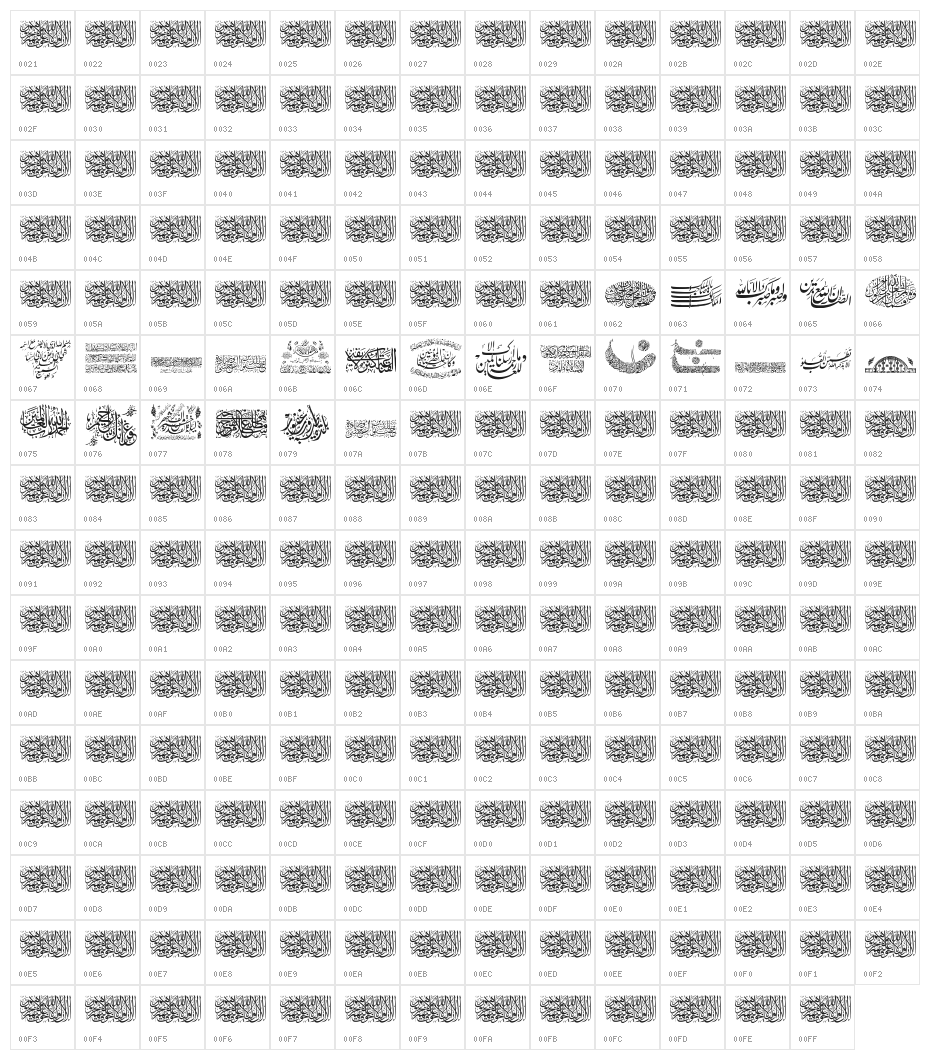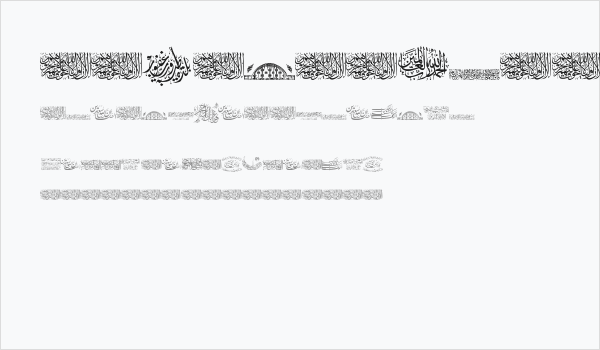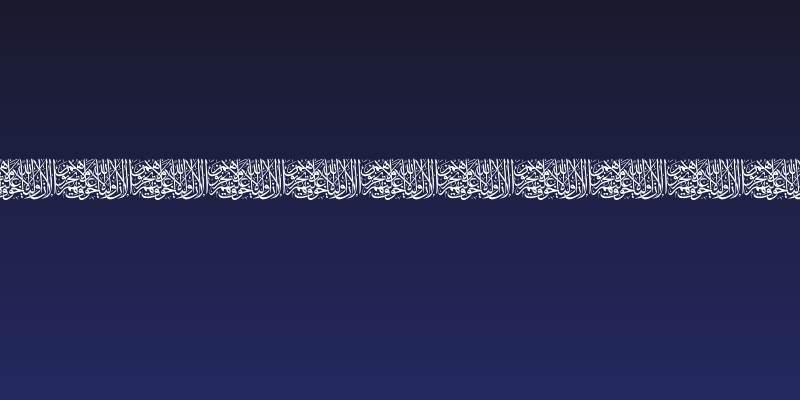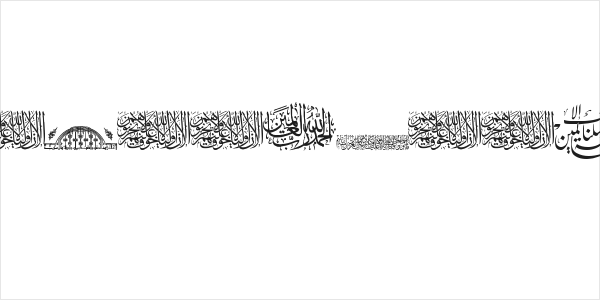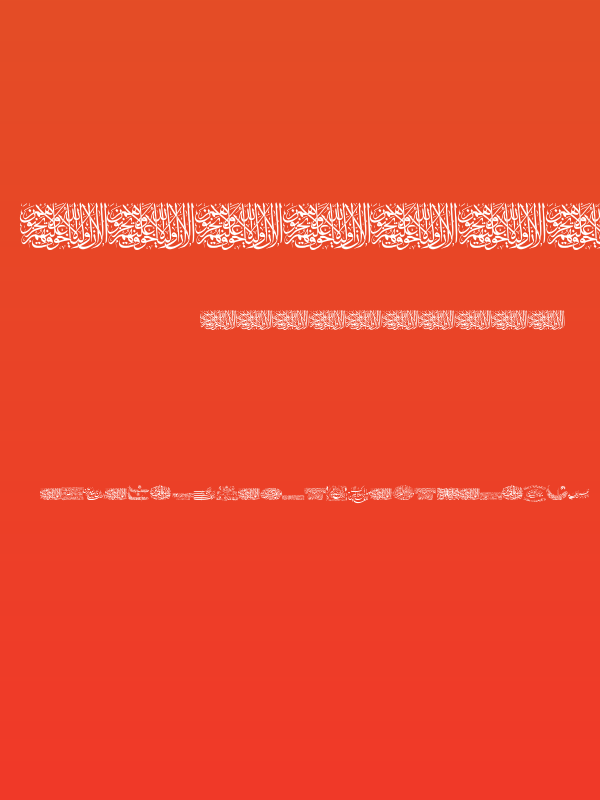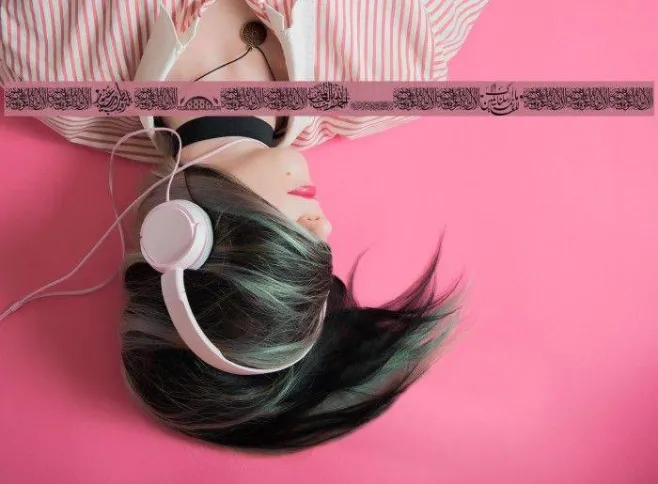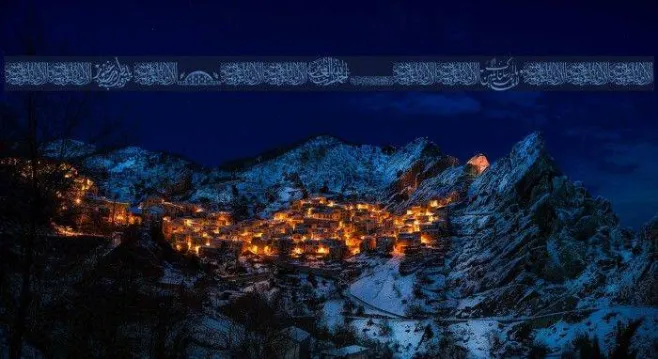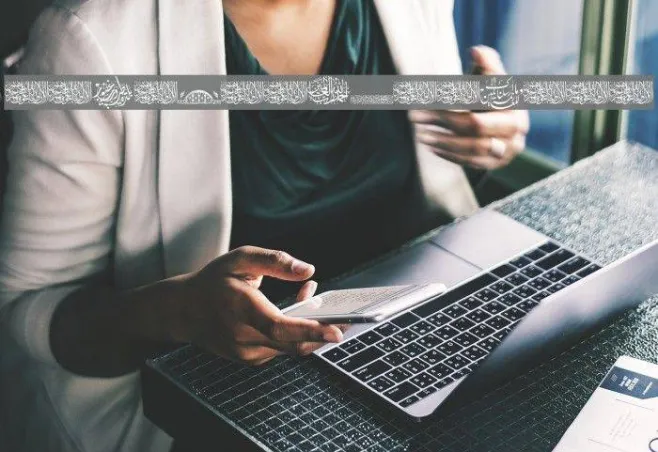
Aayat Quraan 13 Font
Aayat Quraan 13 Description
This is a highly decorative and intricate Arabic script, often used in religious texts and traditional calligraphy. The characters are elegantly interwoven, creating a continuous flow that is both artistic and harmonious. The script features a high level of detail, with each letter meticulously crafted to maintain a balance between form and function. The overall appearance is ornate, with a focus on aesthetic beauty and spiritual significance. This style is typically used in contexts where visual impact and cultural authenticity are paramount.
| Overall Style | Traditional |
| Use Case | Religious texts, Calligraphy art |
| Proposed Projects | Ideal for religious texts, traditional calligraphy art, and cultural heritage projects. |